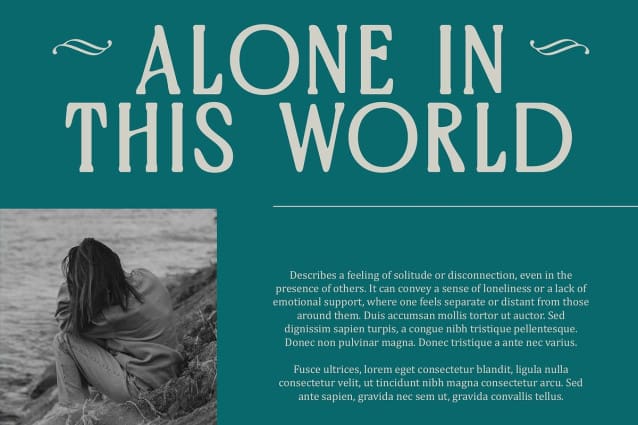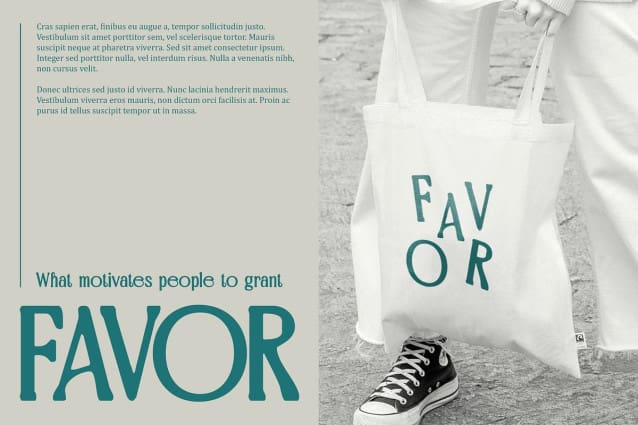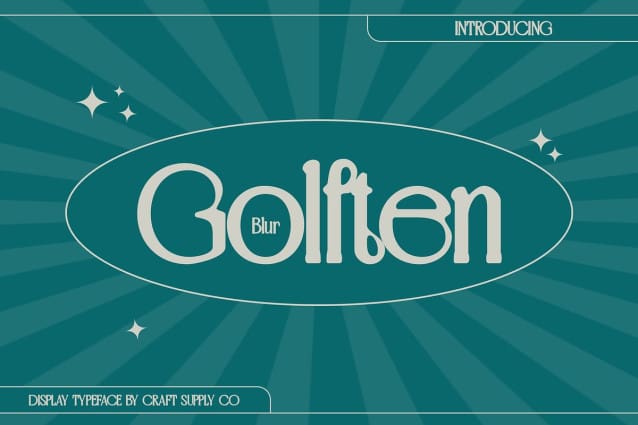
Golften Blur Font
Golften Blur Font is a modern serif font that beautifully blends the classic elegance of Art Nouveau with contemporary aesthetics. Its slim, graceful characters and intricate ornamental details radiate timeless beauty and sophisticated style, creating a captivating appearance.
Timeless Beauty with Smooth, Graceful Lines Featuring smooth lines and refined shapes, Golften Blur exudes a sense of timeless luxury and charm. The font’s elegant design is perfect for projects that require a touch of sophistication, such as invitations, high-end branding, and editorial layouts.
Ideal for Elegant and Sophisticated Projects Whether used for formal invitations, stylish branding, or refined editorial design, Golften Blur adds a timeless touch of grace and luxury to any project. Its enchanting Art Nouveau influences combined with modern elements make it a versatile choice for adding a distinctive, elegant flair.
Elevate Your Design with Golften Blur Enhance your design projects with Golften Blur, where classic Art Nouveau elegance meets contemporary refinement. Its exquisite blend of slim characters and ornate details makes it ideal for creating sophisticated and memorable visual identities.